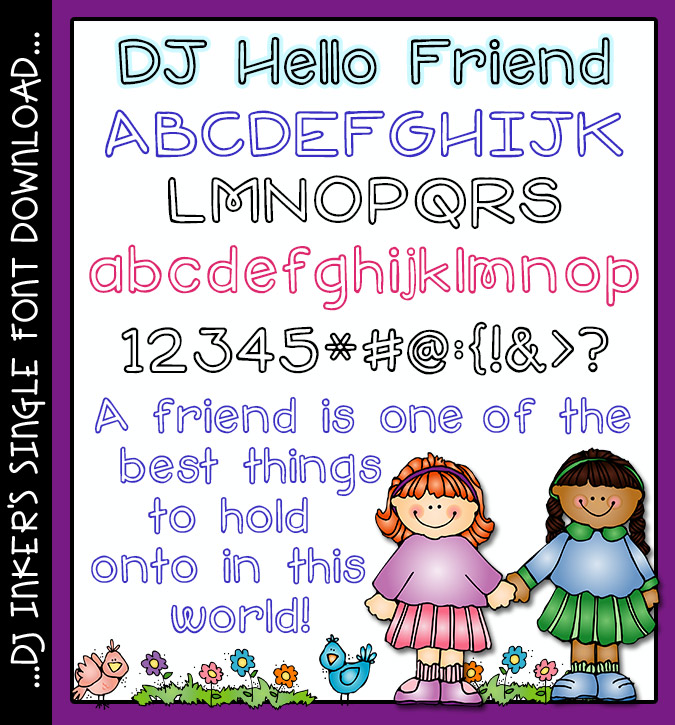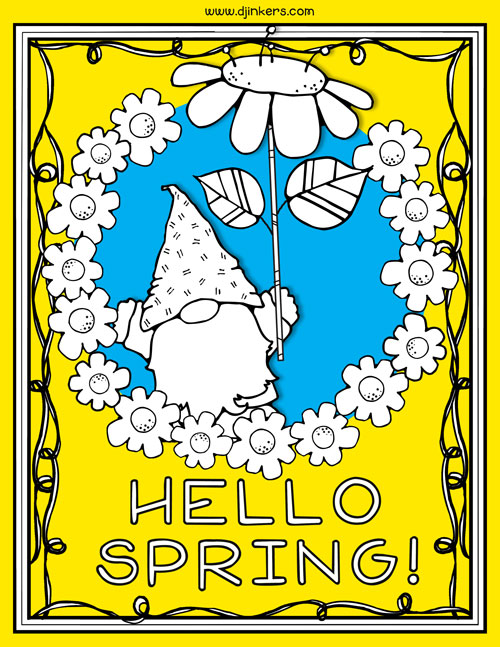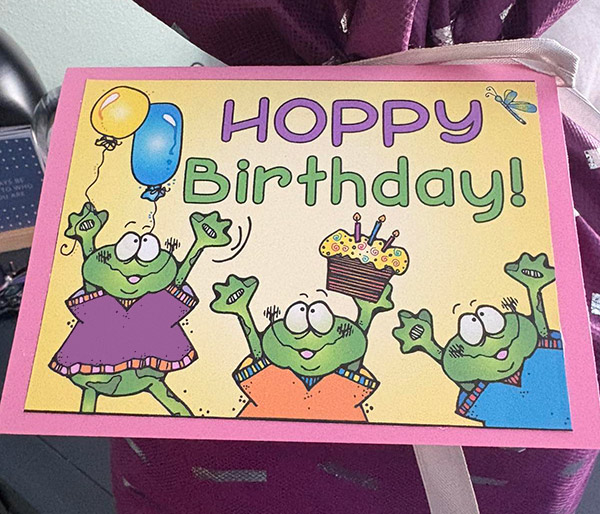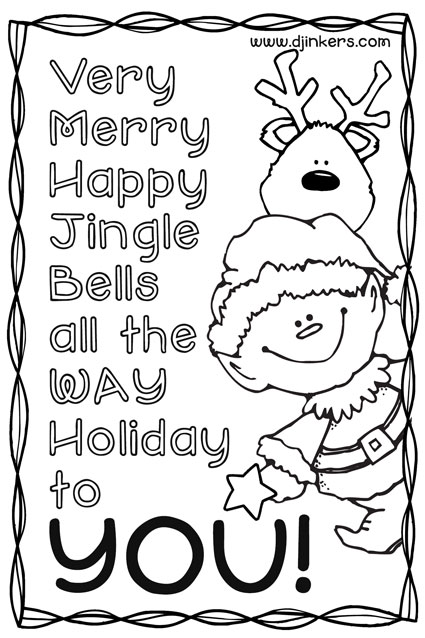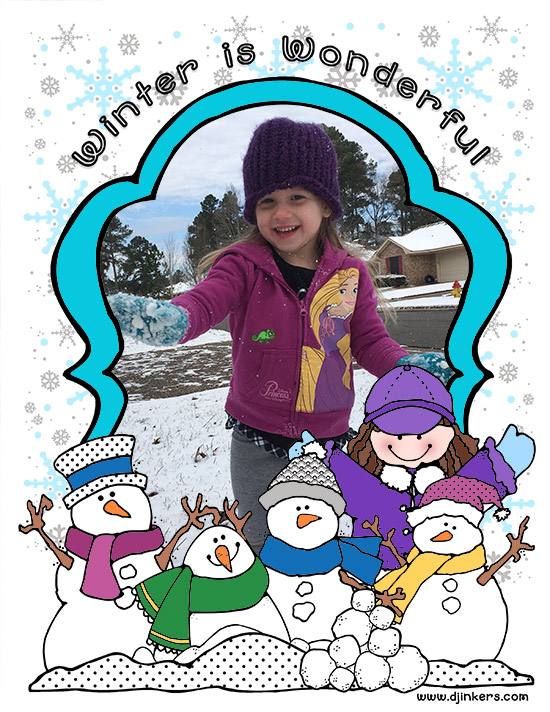
DJ Hello Friend Font Download
Say "Hello" to cute and creative lettering by DJ Inkers! DJ Hello Friend
is an open outline font that's bold
and easy to read, making it a fun & versatile addition to your collection.
Perfect for projects at home, school, work or play.
This font gets even better with
a little help from it's single stroke friend, DJ Hello!